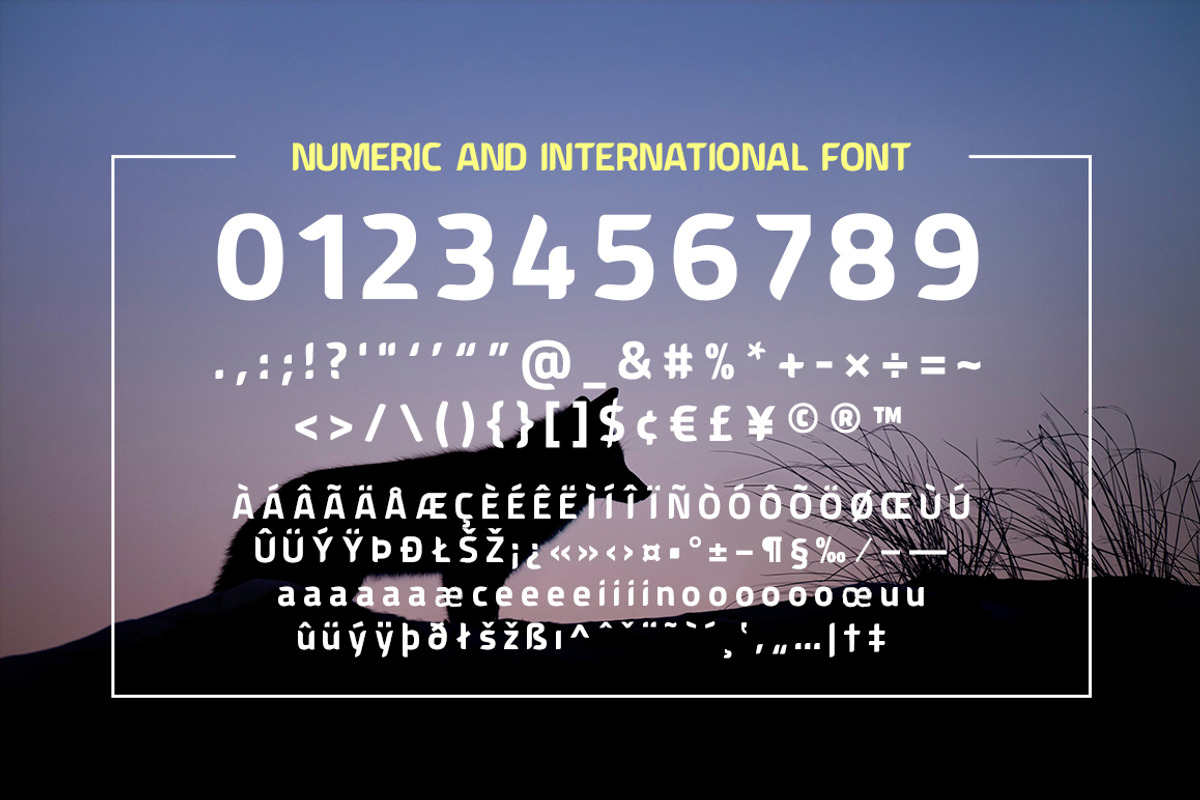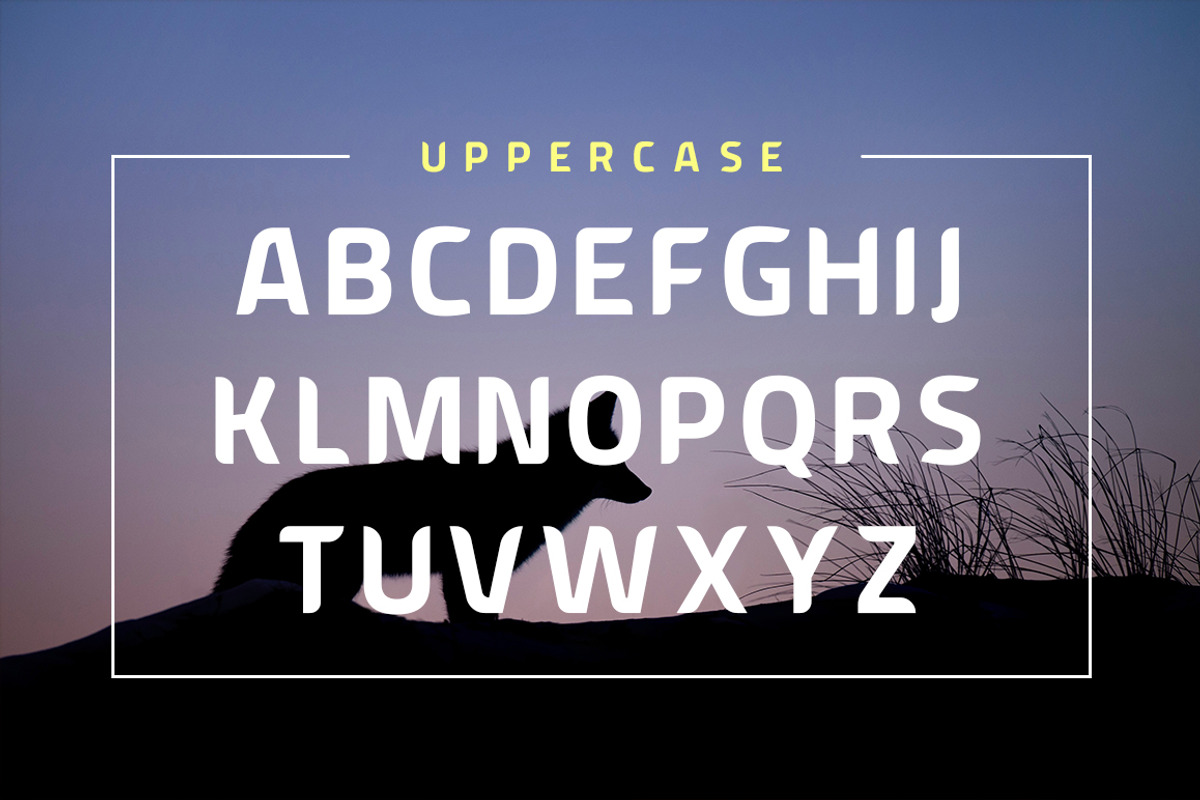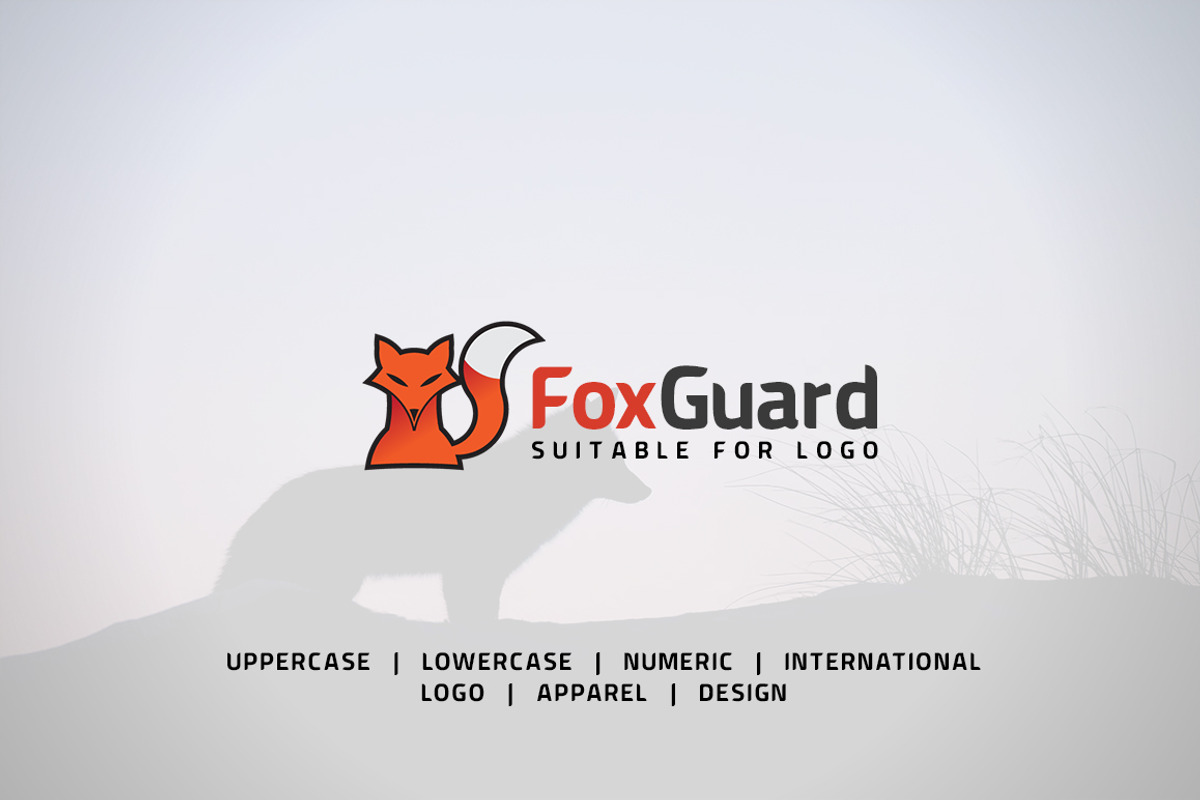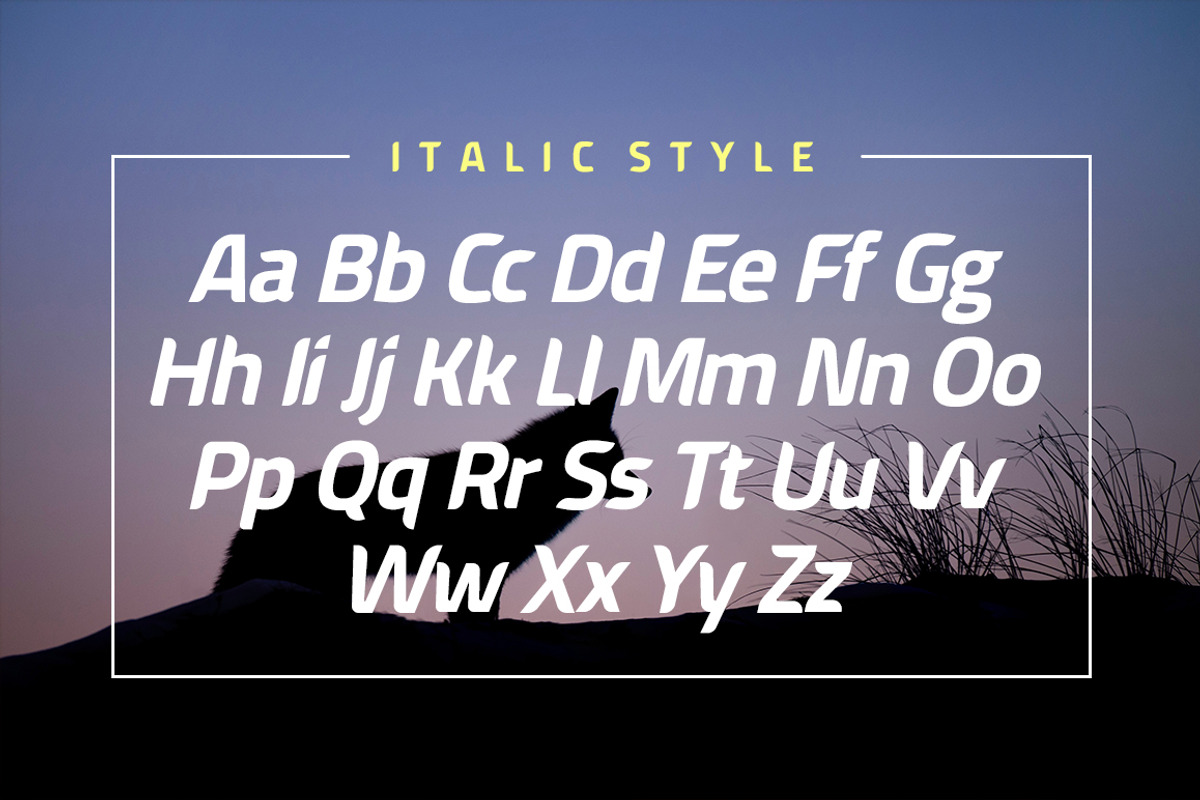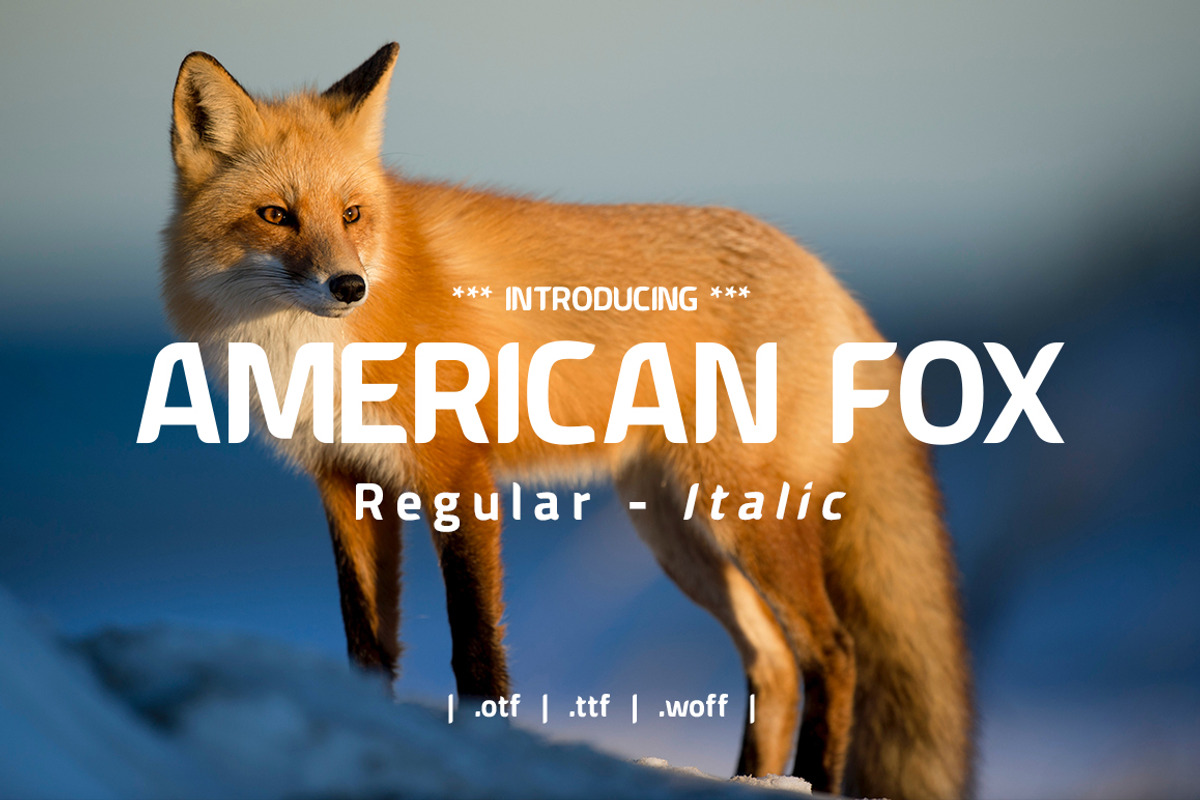
American Fox Font
American Fox font very suitable for poster, for logo, music cover, clothing, and many many cool design projects. Amarican Fox font is uppercase and lowercas. Numeric and international font.
- Amarican Fox font is uppercase and lowercas.
- American Fox Regular
- American Fox Italic
American Fox Font by yantodesign fits naturally into Branding, posters, packaging, typography.